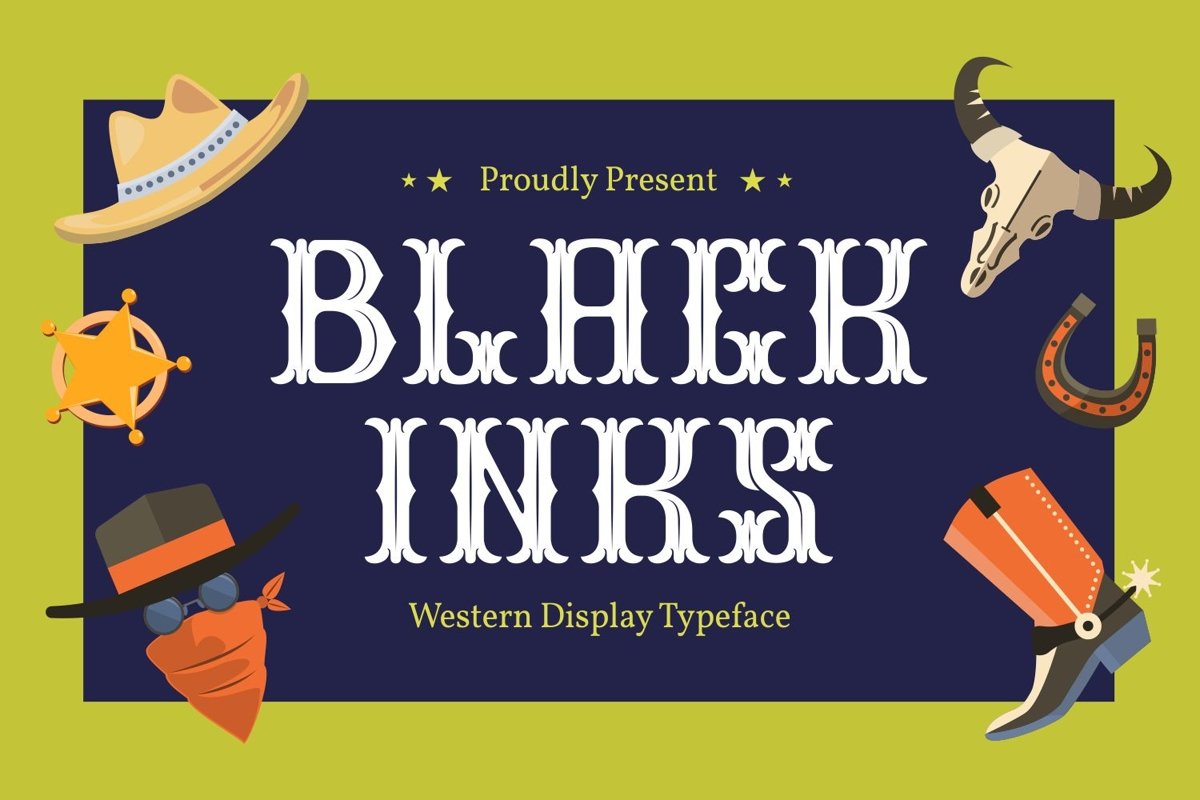
Black Inks is unique serif display come with all-caps characters. It matches applies in some designs such as the logotype, brand, packaging, quotes, poster, shirt and more custom design. The features all-caps, numeral, punctuation & symbol, multilingual support, PUA encoded (fully accessible without additional design software). What includes : • Black Inks.ttf • Black Inks.otf